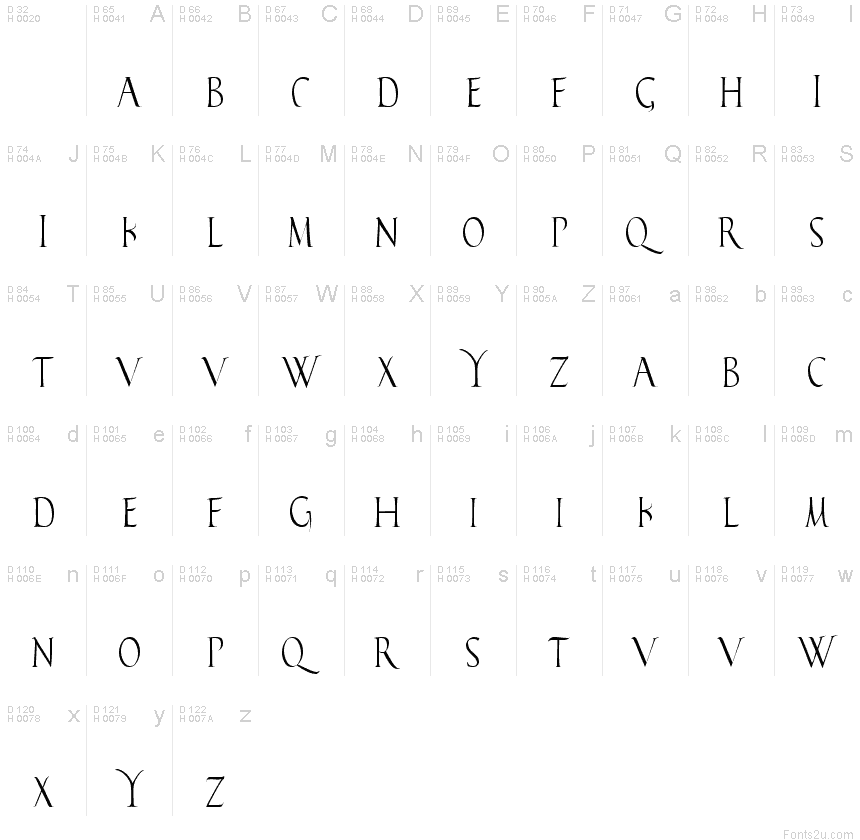
Falconis
Falconis font by Michael Scarpitti is a free retro serif typeface that feels like it’s been lifted from the margin notes of an illuminated manuscript. Its letters are tall and slender, with inky strokes that swell and taper like they were brushed onto parchment rather than plotted by a mouse. The slight irregularity in width gives each word a subtle sway, creating a mood that’s both mystical and refined rather than stiff or mechanical.
Using Falconis, headlines and titles gain a quiet drama that doesn’t shout, but absolutely lingers. This free font shines on fantasy book covers, historical posters, tarot and occult branding, event invitations, editorial pull quotes, and logo wordmarks that need a hint of old-world magic. Pair Falconis with a clean, understated sans serif at smaller sizes to keep layouts readable while letting its elegant curves command the spotlight.